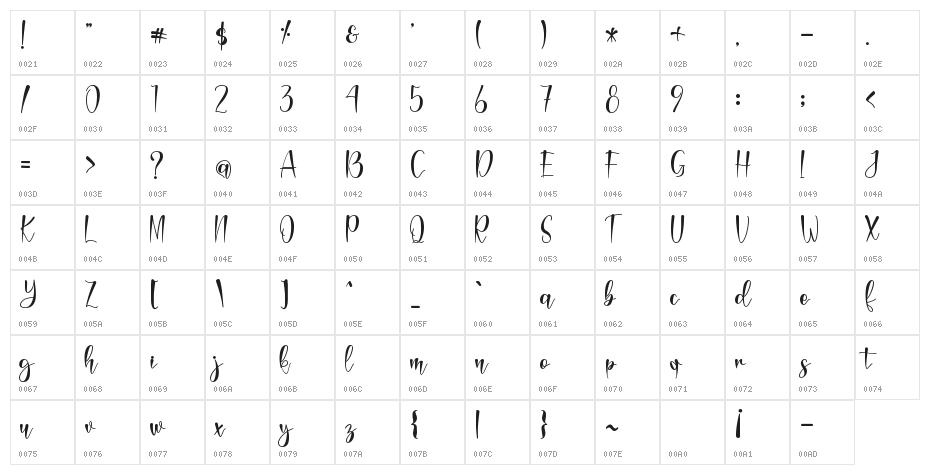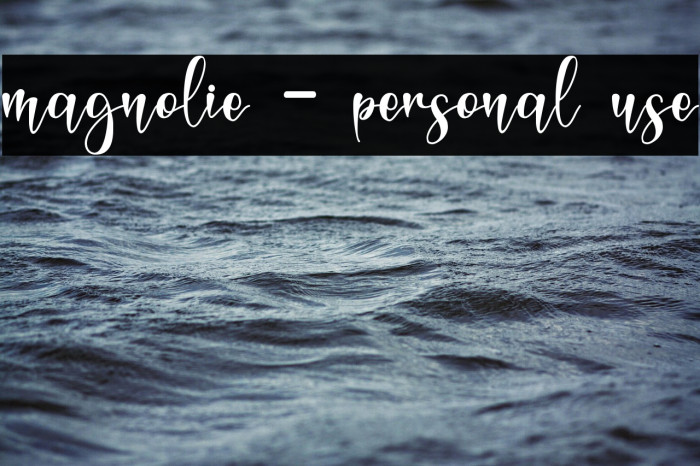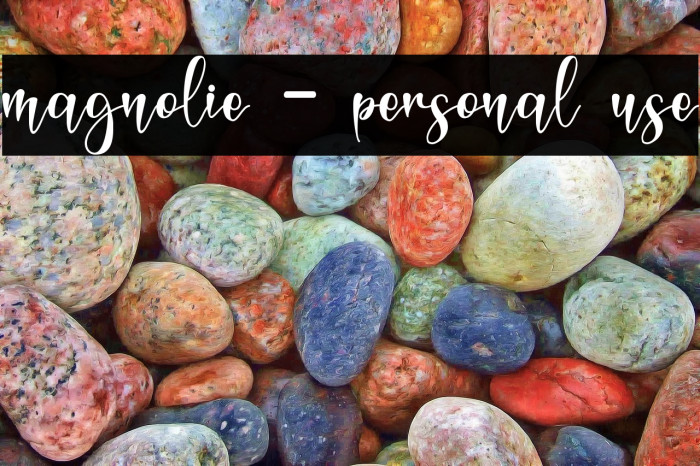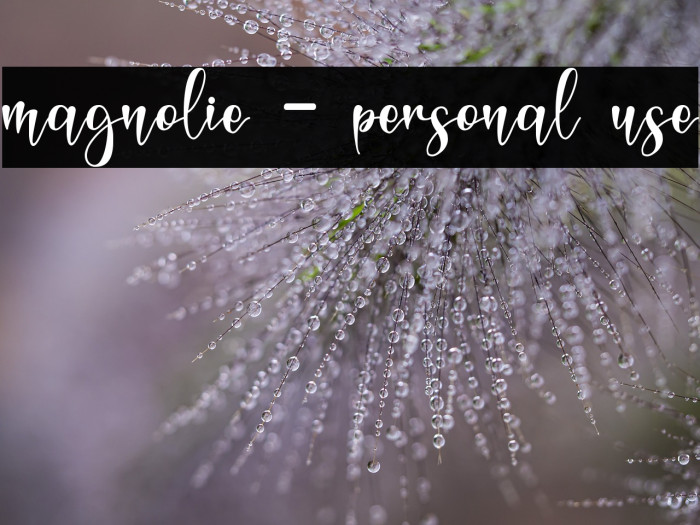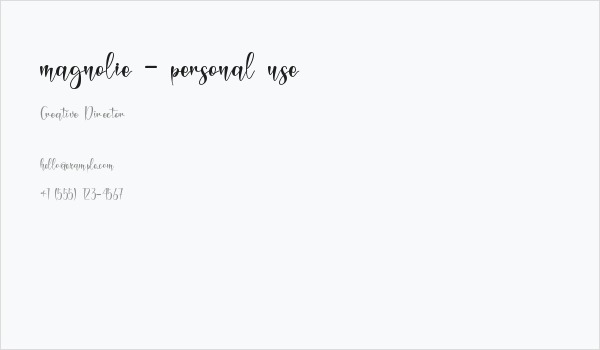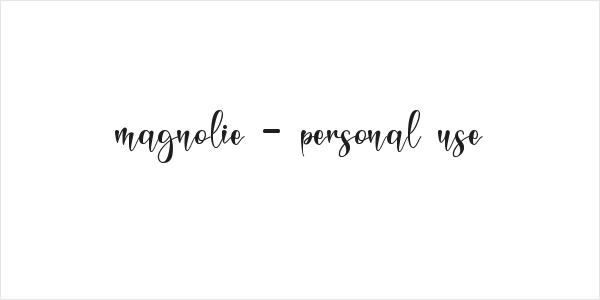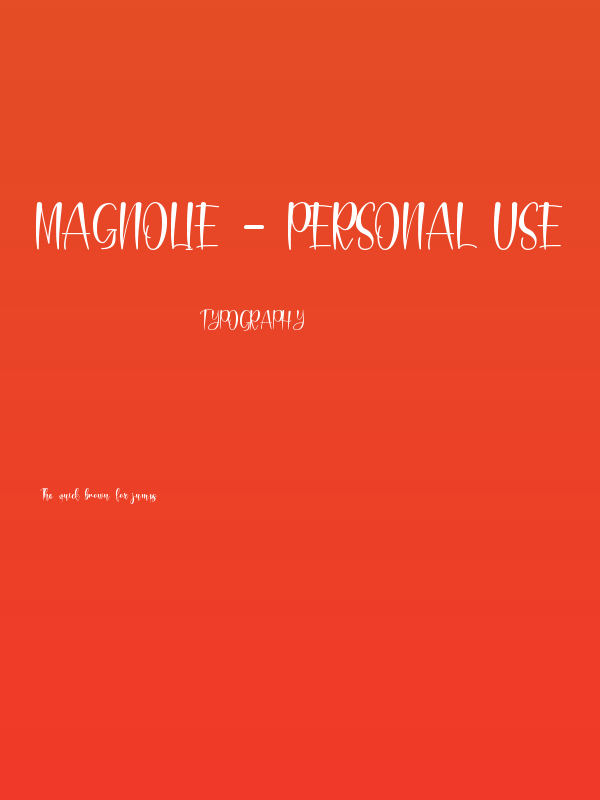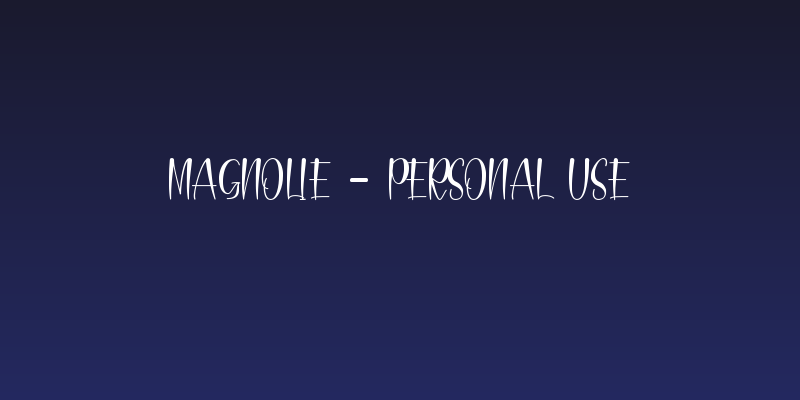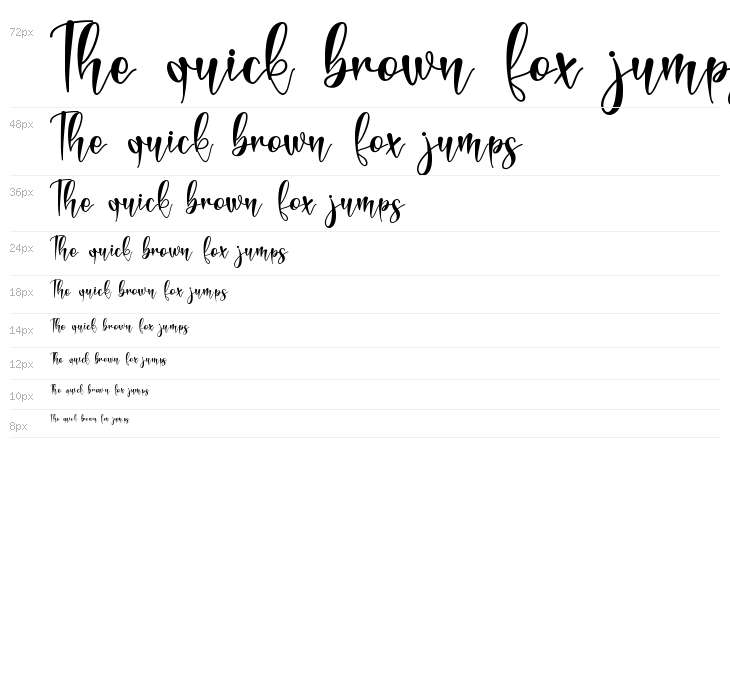
magnolie - personal use Font
magnolie - personal use Description
This font features a lively and expressive script style, characterized by its flowing, cursive letterforms. The uppercase letters are tall and elegant, with a slight slant that adds a dynamic feel. The lowercase letters are more compact, maintaining a consistent rhythm throughout. The numerals are distinct and easy to read, complementing the overall aesthetic. Special characters are creatively integrated, maintaining the font's playful and artistic nature. The strokes vary in thickness, providing a medium contrast that enhances readability while preserving the font's decorative appeal.